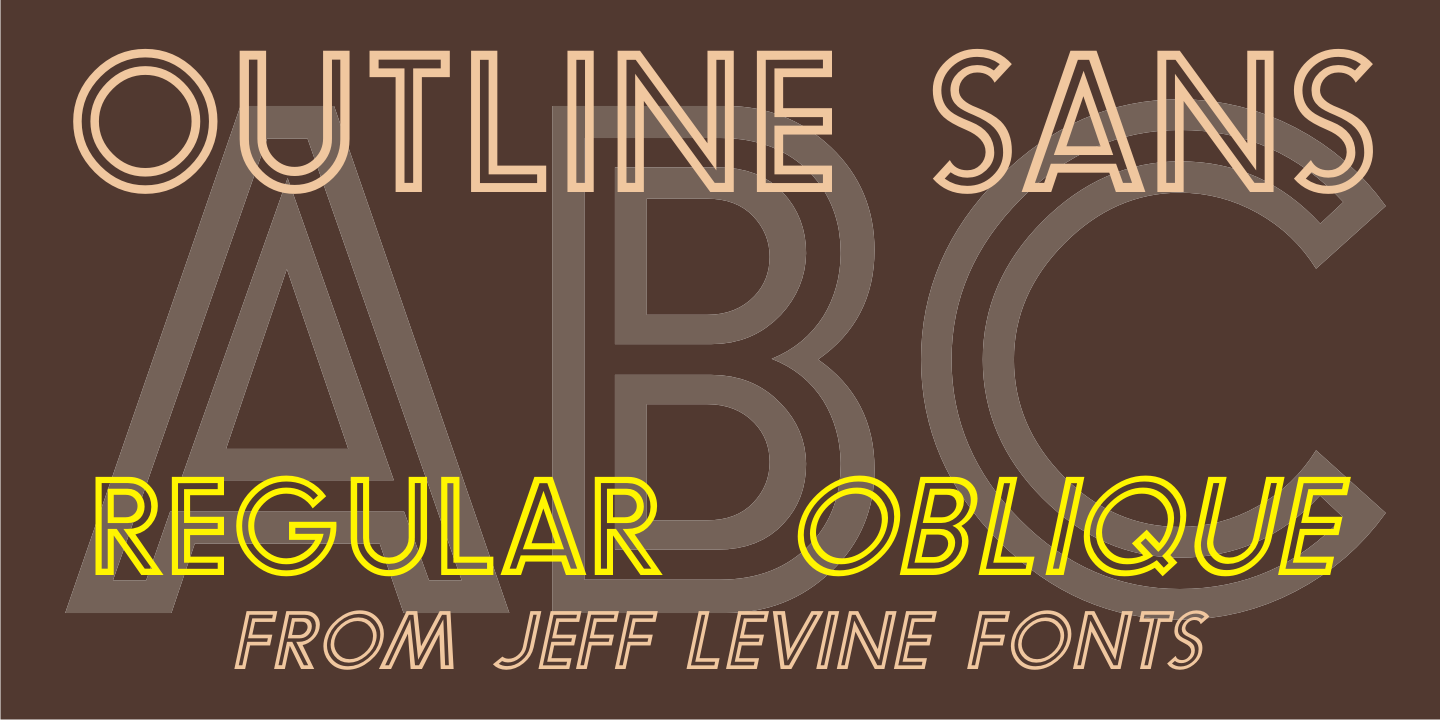
Outline Sans JNL Font is perfect for minimalist architectural signage, contemporary design studios, modern art galleries, clean corporate identities, sophisticated tech interfaces, streamlined packaging design, elegant fashion labels, and refined editorial layouts. This distinctive typeface excels in contemporary environments, minimalist applications, and any project requiring outlined sophistication that communicates structural clarity and modern refinement through clean skeletal elegance.
What makes Outline Sans JNL Font exciting is its remarkable ability to convey structural transparency and architectural precision through elegantly outlined letterforms that reveal the essential skeleton of typography while maintaining sophisticated readability. The font features precisely crafted characters with clean outline construction and minimalist proportions that evoke feelings of architectural transparency and modern sophistication, making it ideal for brands seeking to establish contemporary connections and communicate through refined structural visual language. Its outlined presence ensures immediate recognition of modern authenticity and architectural clarity.
Outline Sans JNL Font family includes multiple weights and styles: Regular, Bold, Light, Medium variations, and structural alternates with architectural embellishments and minimalist decorative elements. Each family member maintains the distinctive outlined character while offering comprehensive design options for contemporary campaigns, from clean structural text to commanding outlined headlines that establish modern authority and architectural credibility through elegantly transparent typography.
Whether you're designing contemporary brand identities or creating minimalist architectural campaigns, Outline Sans JNL Font Free Download provides the perfect typography solution for structural branding needs. This font transforms ordinary text into elegant outlined statements that communicate architectural transparency and modern sophistication. Design studios and contemporary architecture firms choose this typeface for its ability to convey structural elegance through precisely outlined letterforms that frame designs with architectural grace and celebrate the beautiful simplicity of typographic transparency.